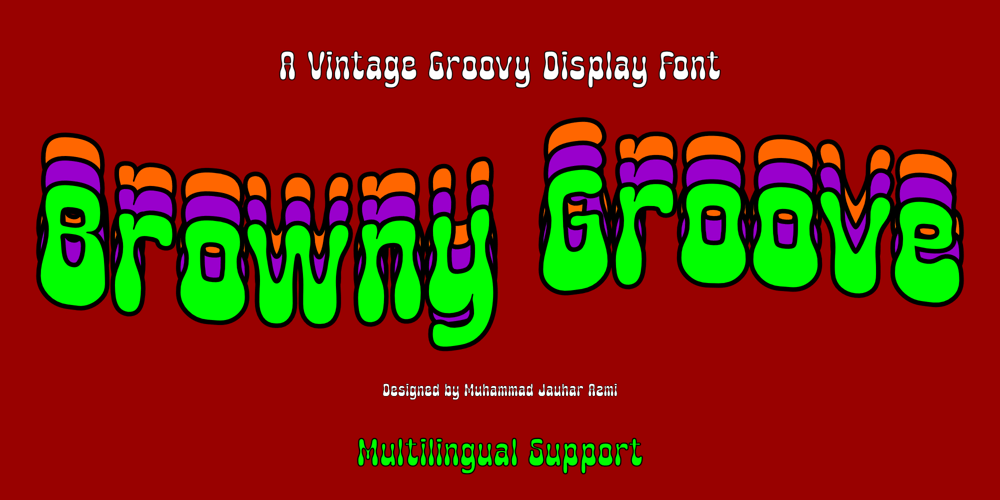
Browny Groove Font Family was designed by Muhammad Jauhar Azmi and published by Brainware Graphic. Browny Groove contains 1 styles and family package options. BrownyGroove is a funky retro psychedelic display font